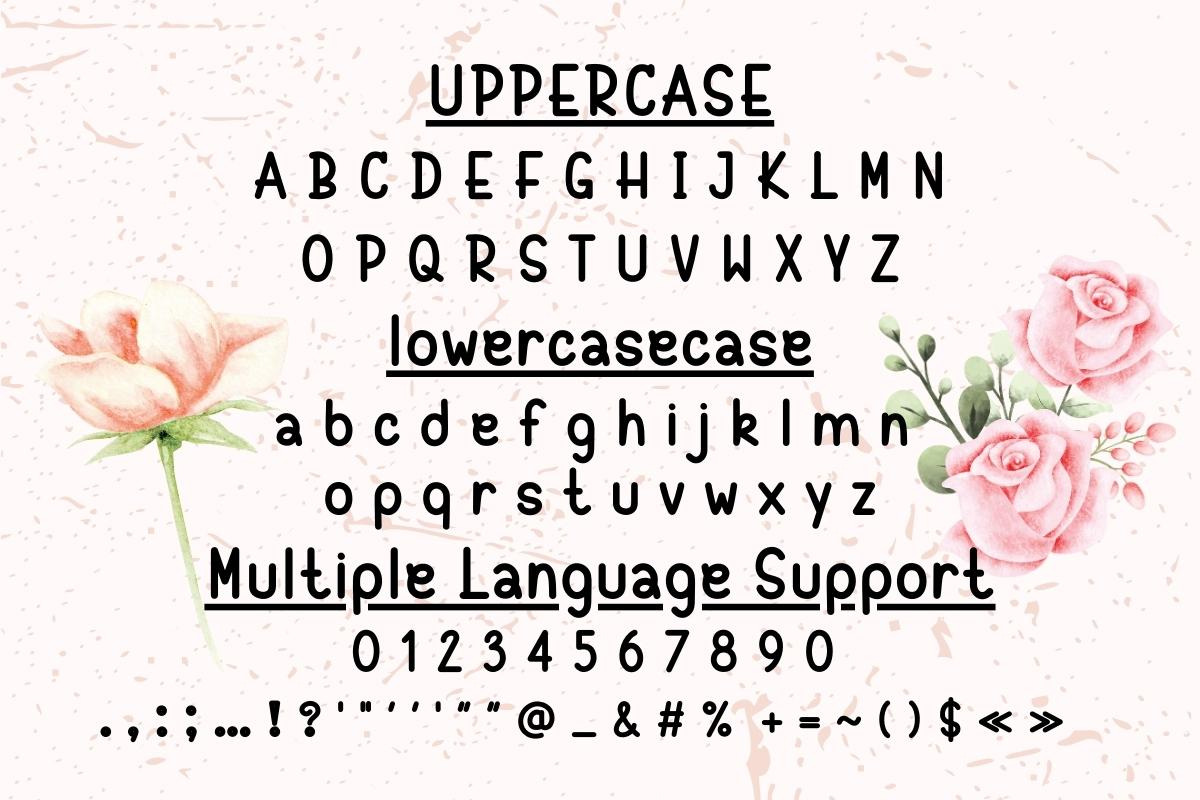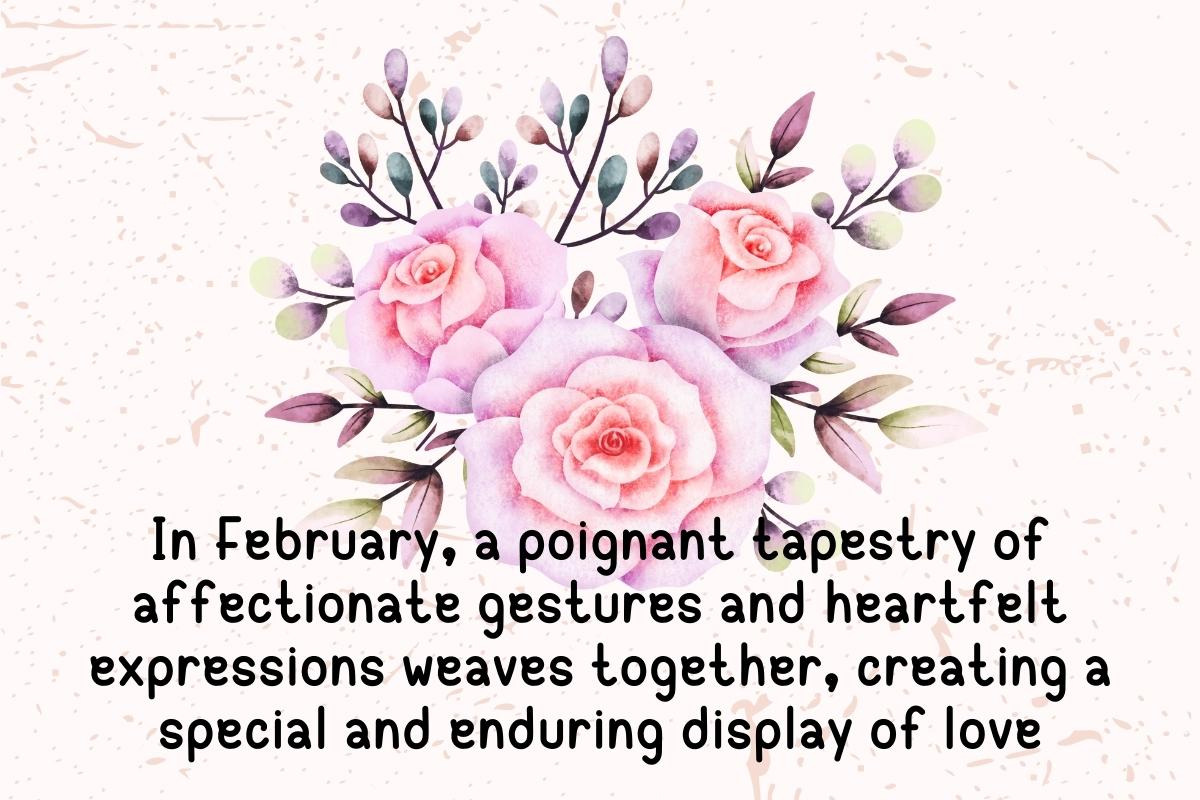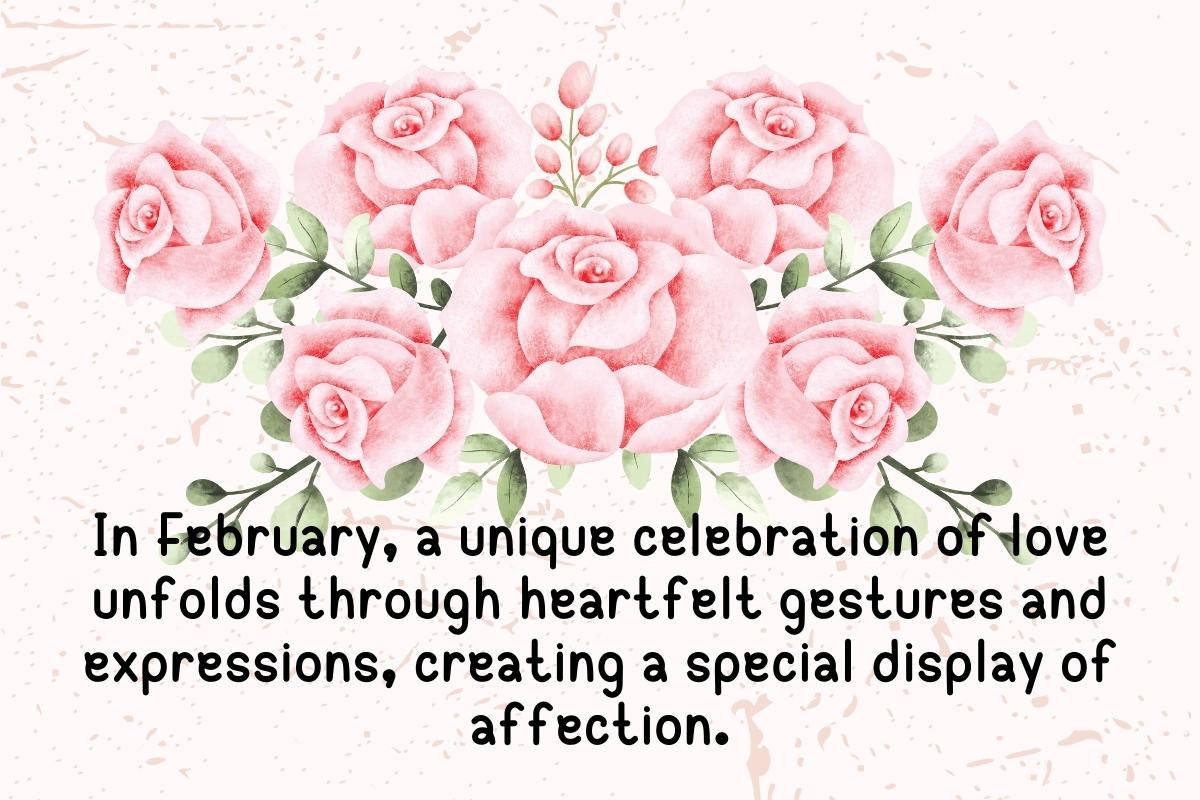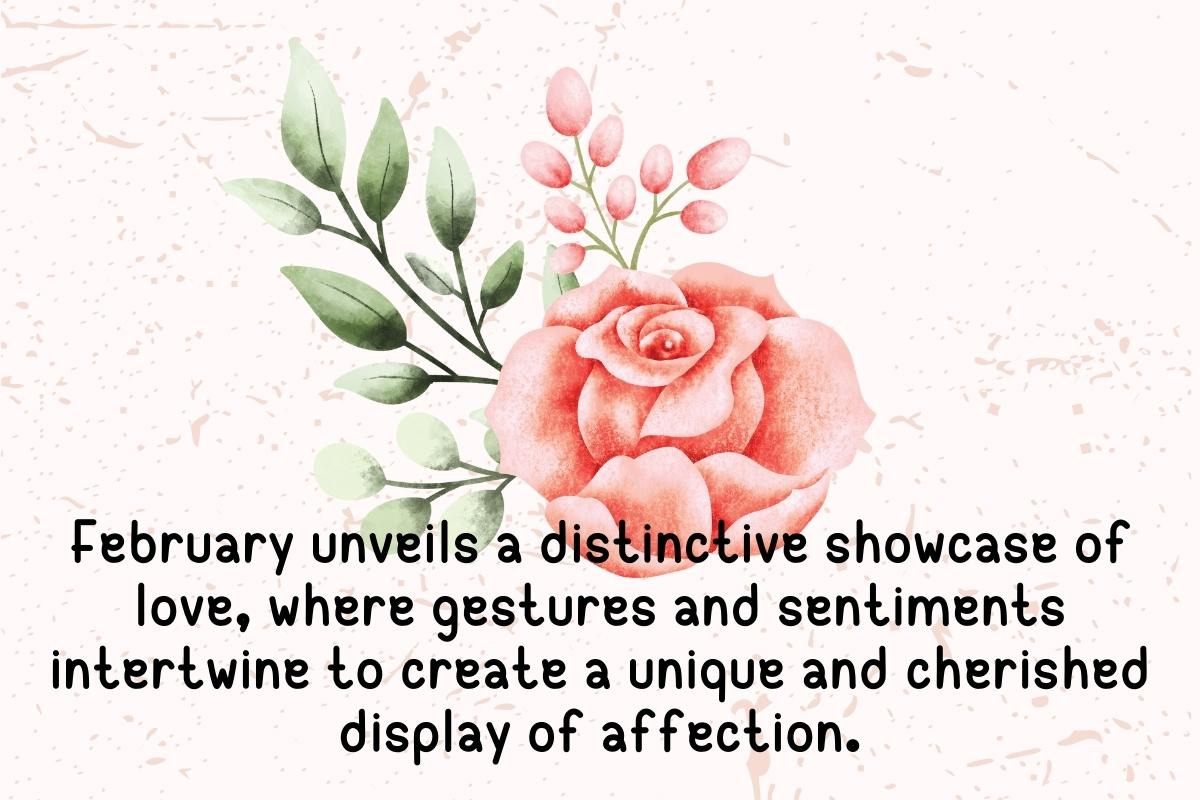
Valentine February - Handwritting
Let your creativity flow as you explore the timeless beauty of "Valentine February." Immerse yourself in a world where each character tells a story, echoing the grace of bygone eras. The font's classic curves and intricate details transport your projects to a realm where nostalgia takes center stage.